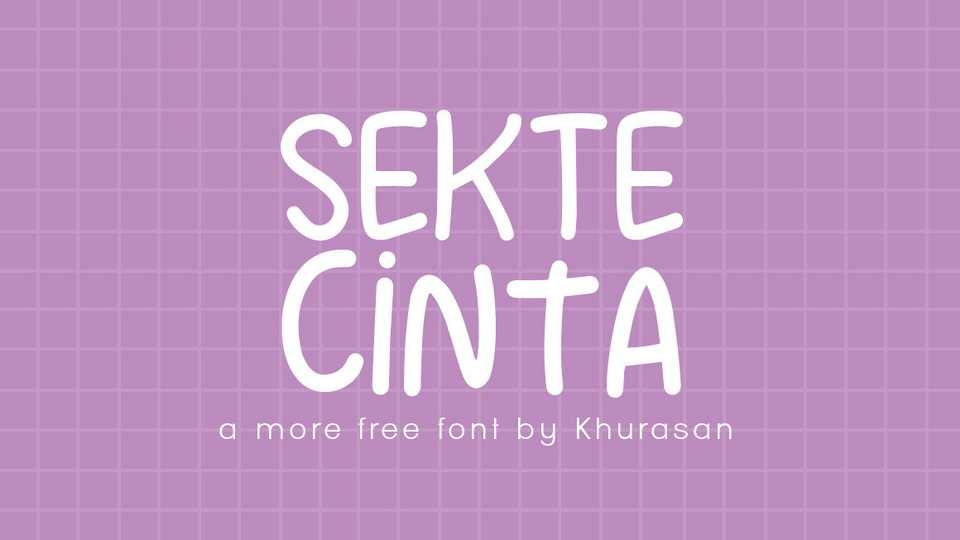
Download Sekte Cinta font, a simple and casual handwritten typeface. Sekte Cinta is perfect for quotes, posters, logos, magazines, book covers, banners, and many more.